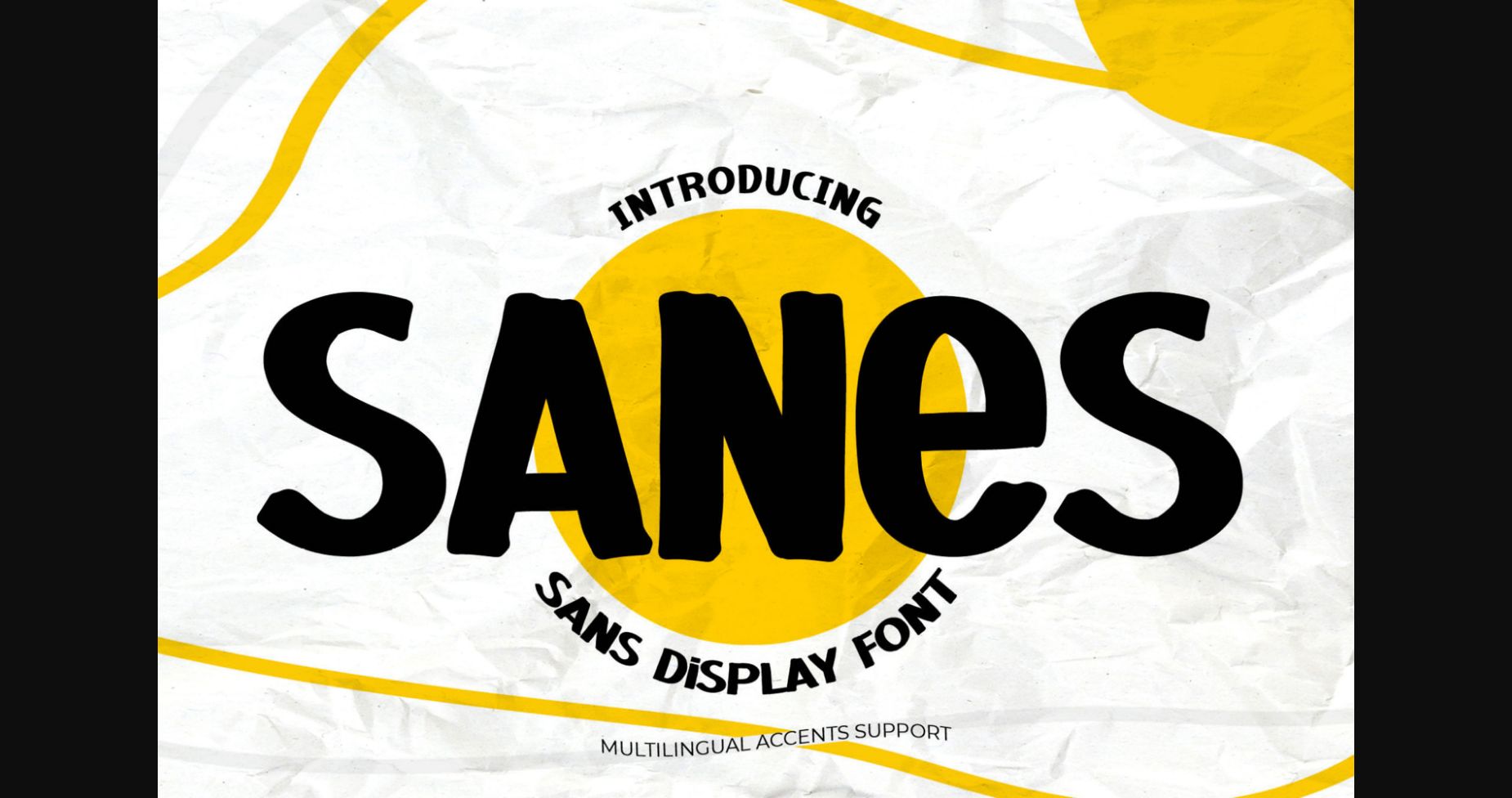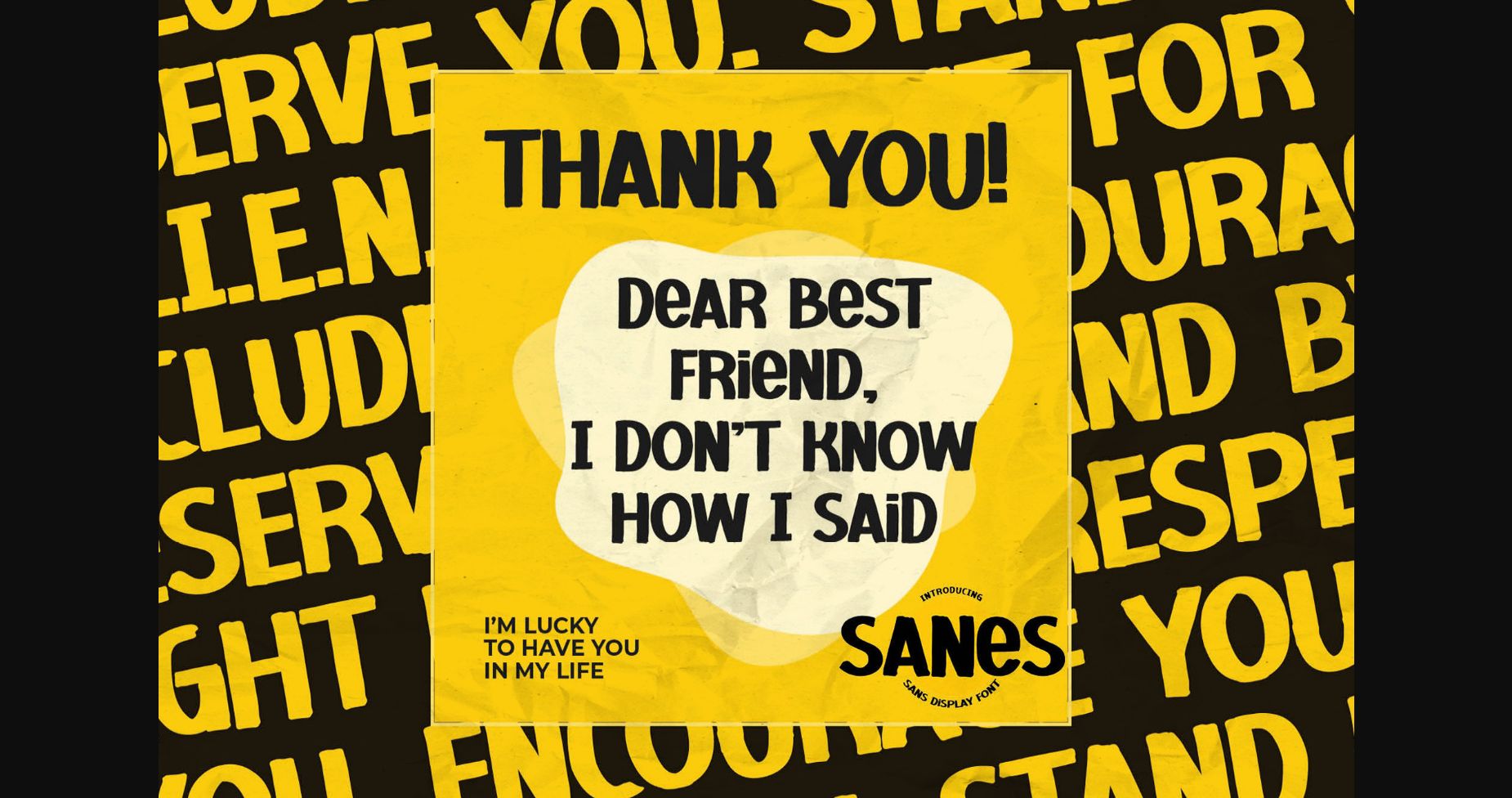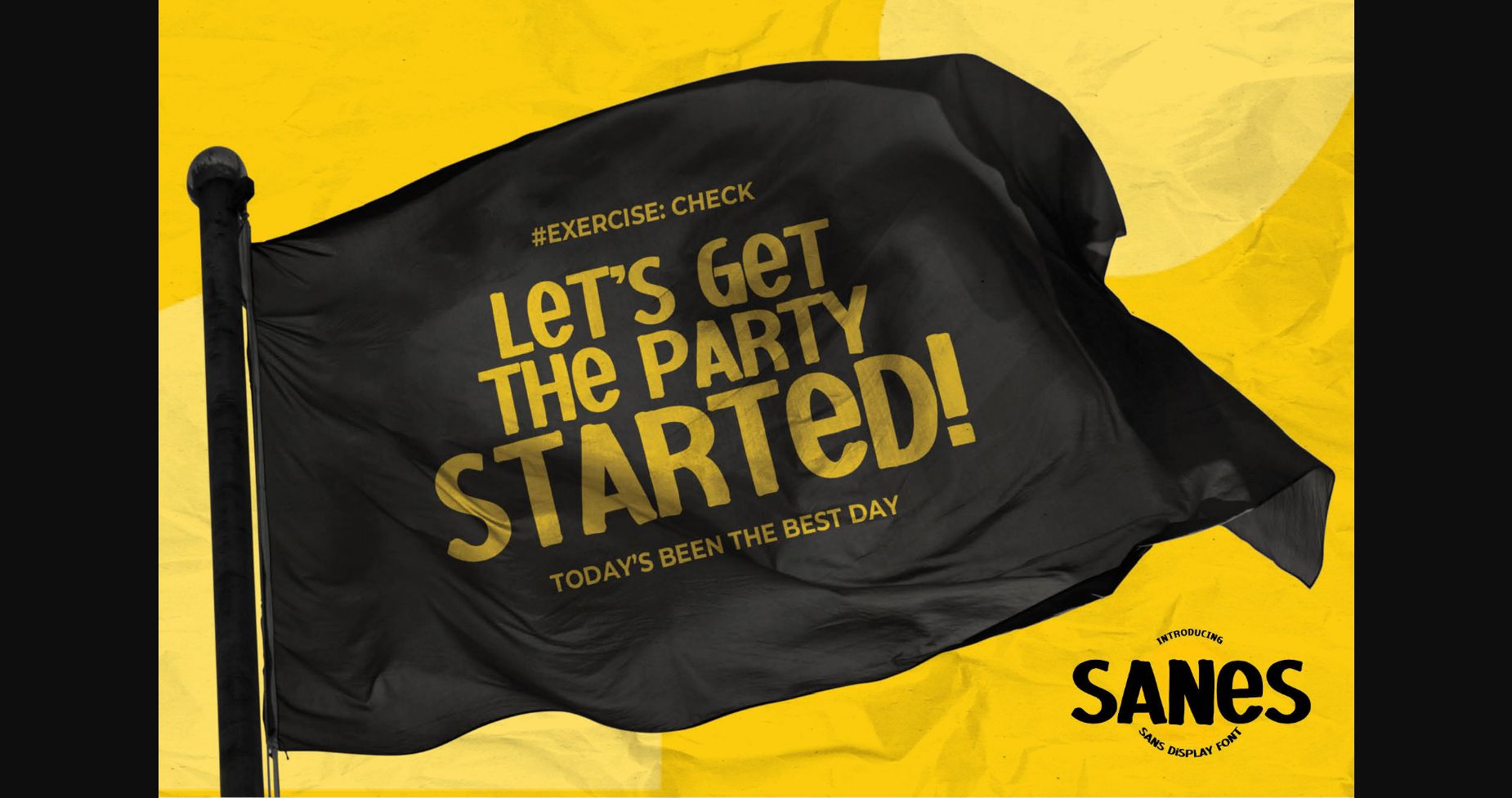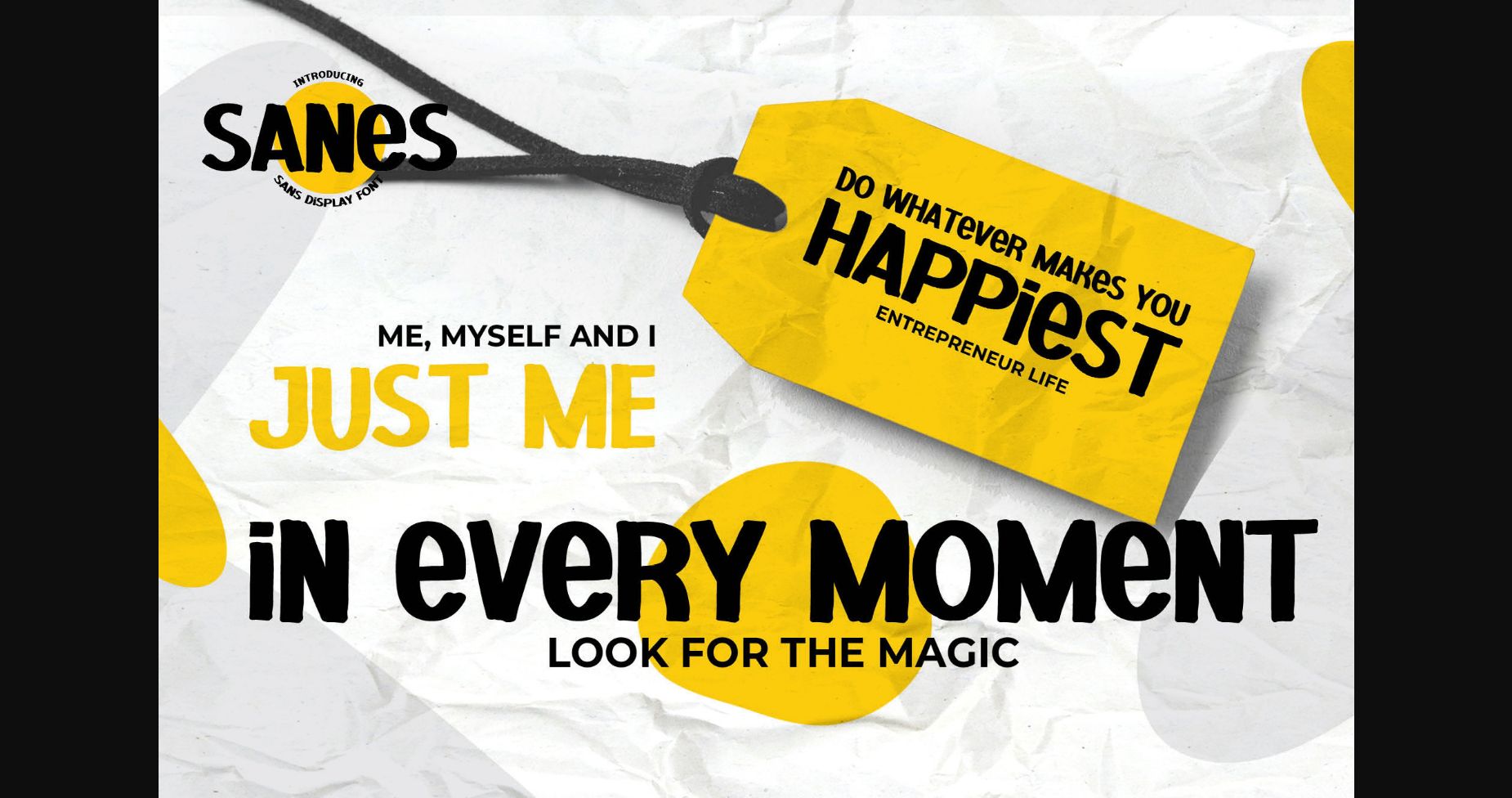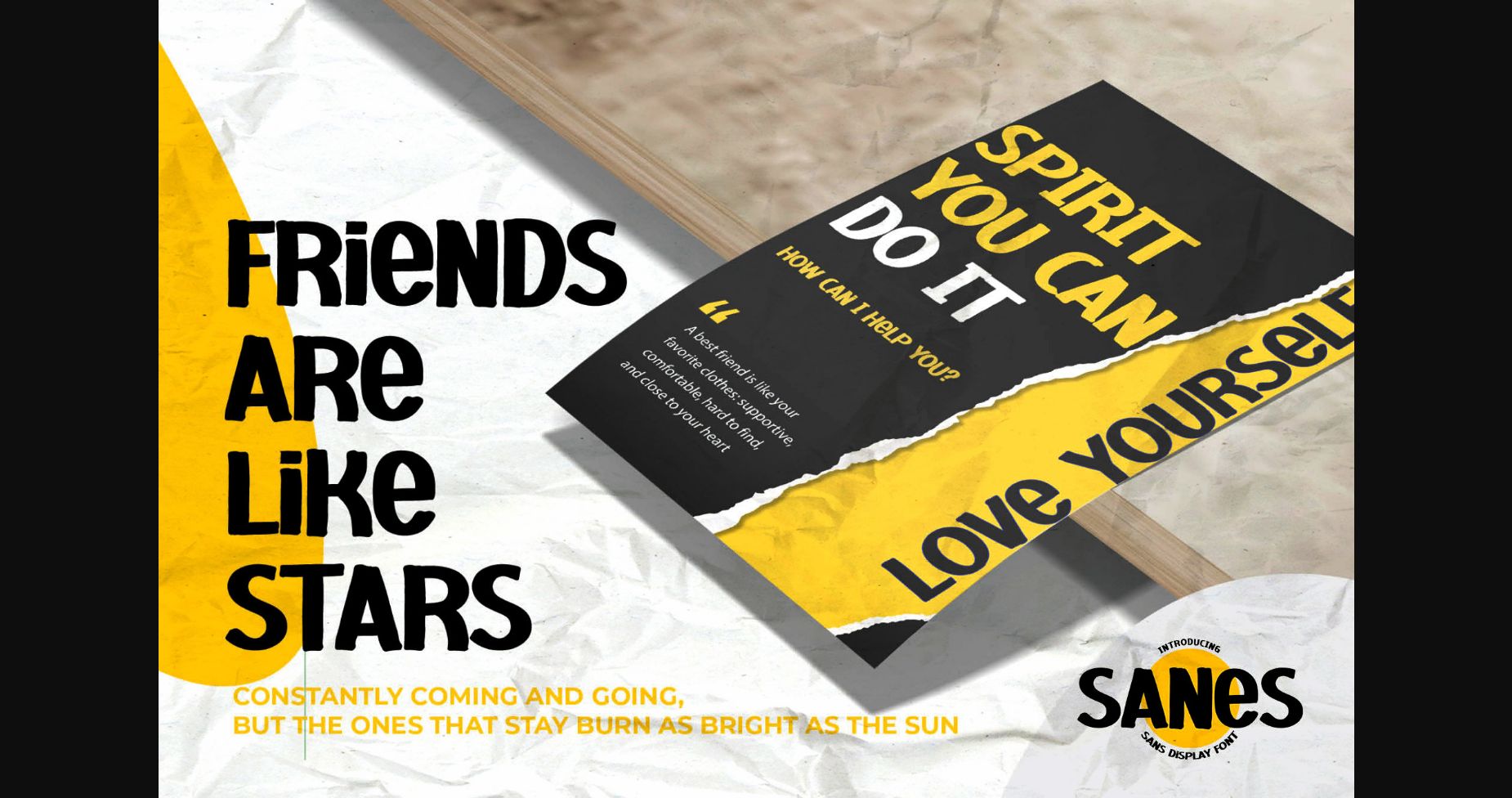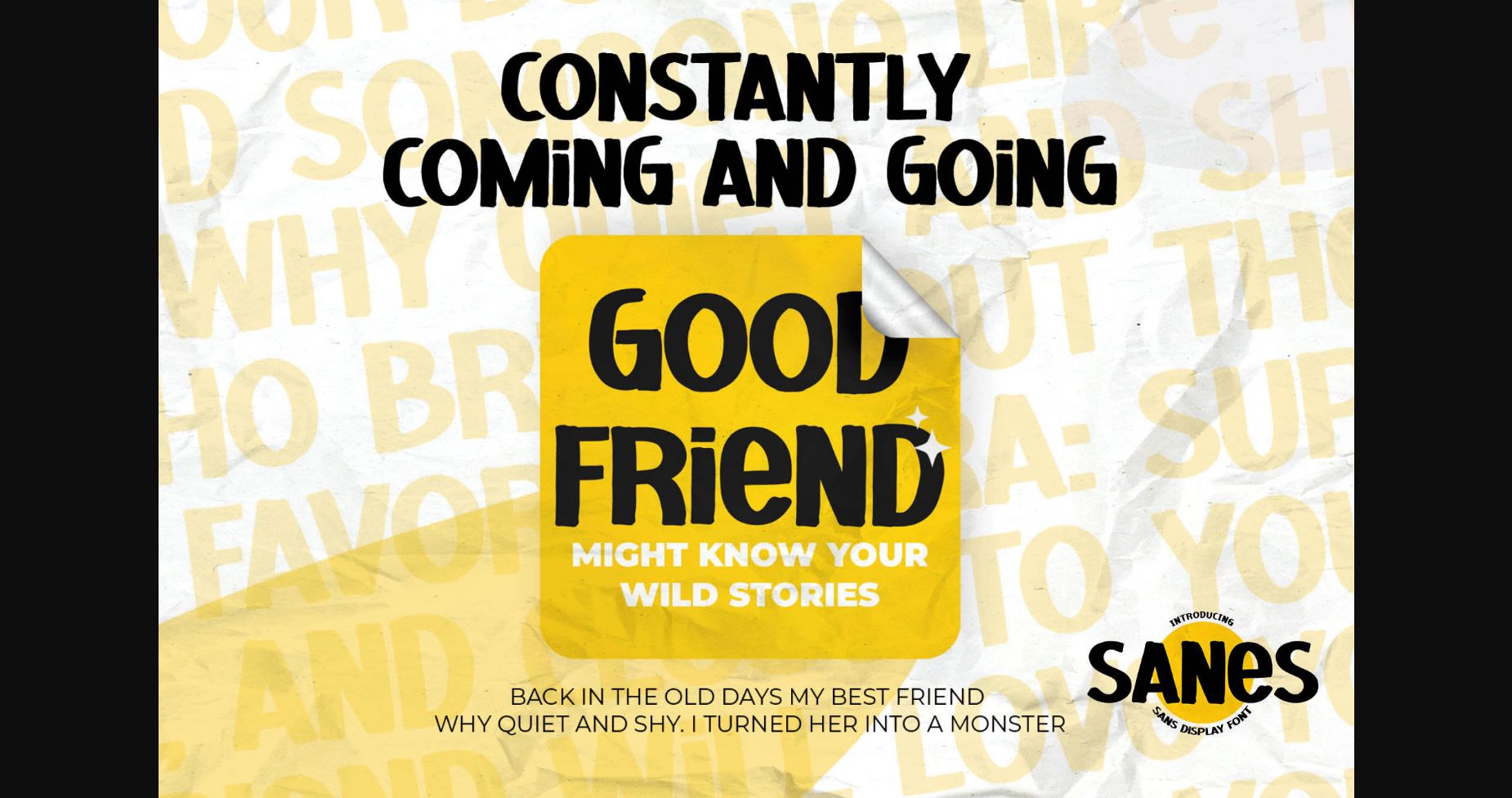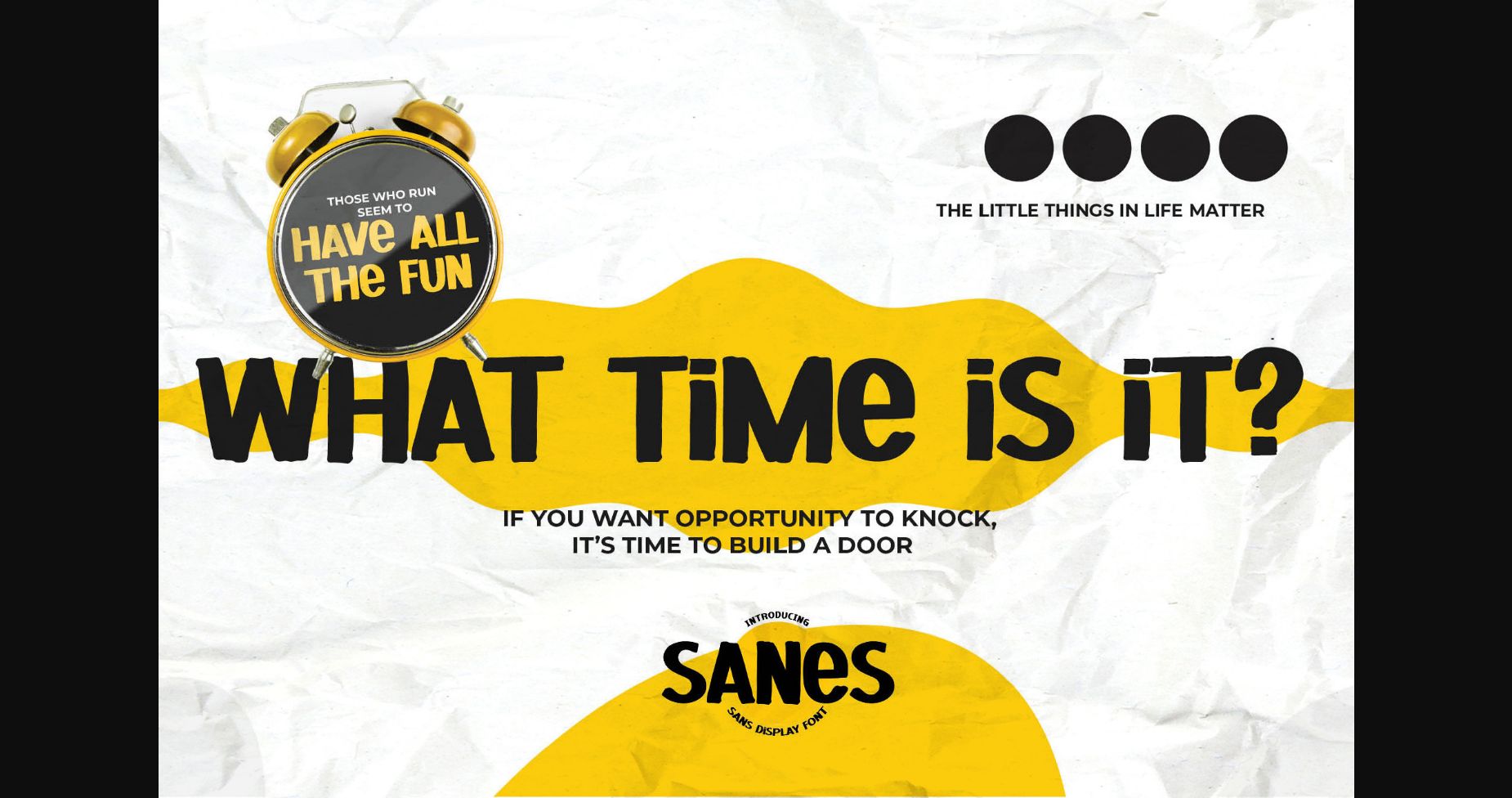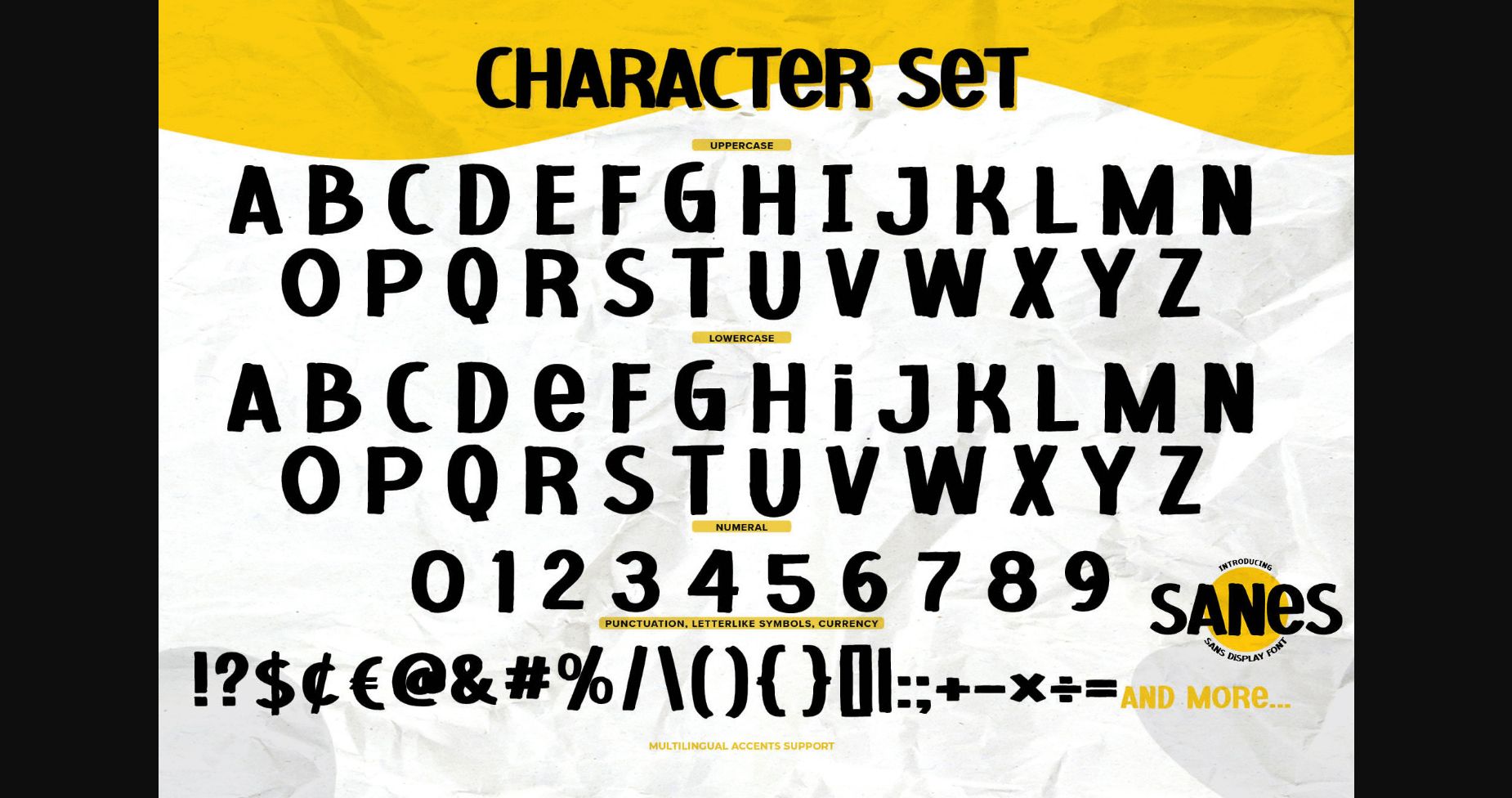
Sanes Font
About Sanes Font
Introducing SANES, a sans serif font that looks incredibly authentic. It is written casually and quickly, then scanned and carefully drawn into a vector format.
This handmade font will make your design more beautiful and natural. It is perfect for any design project such as Invitation, logo, book cover, craft, and any other design purposes.
SANES has a charming, authentic, and relaxed characteristic that will add a more natural look to your text.